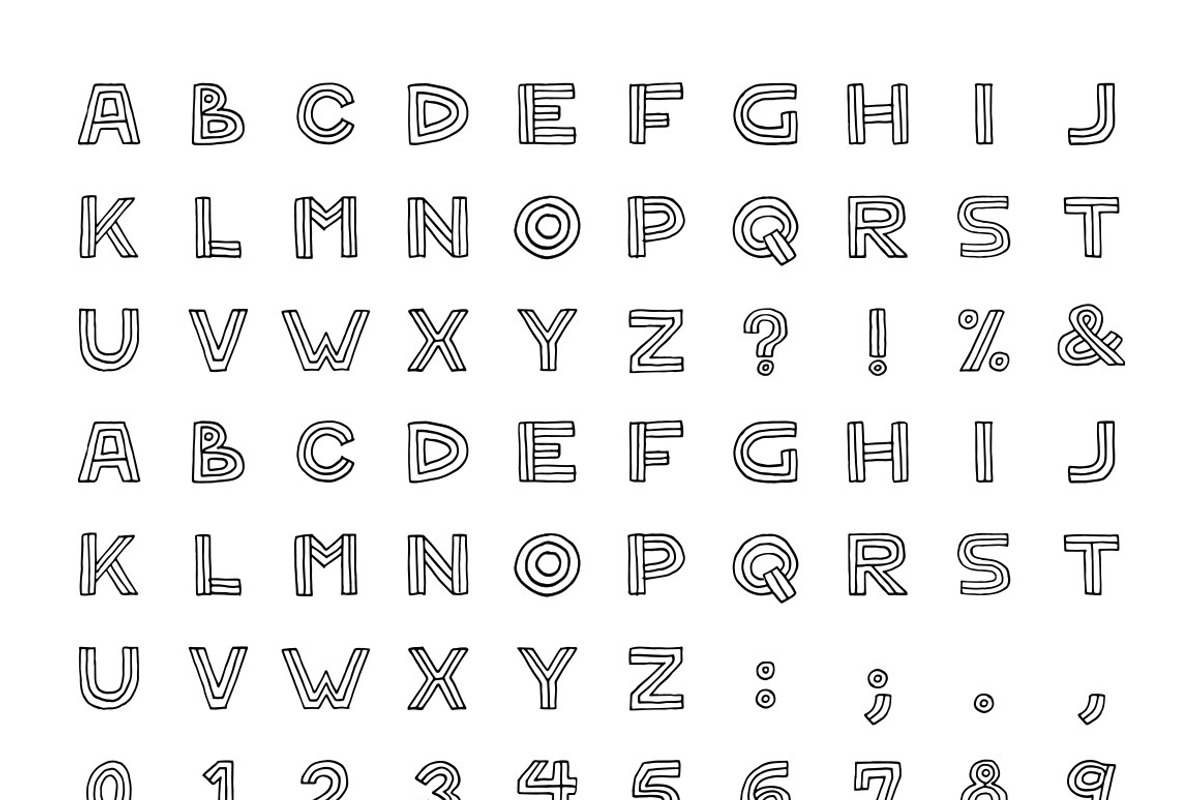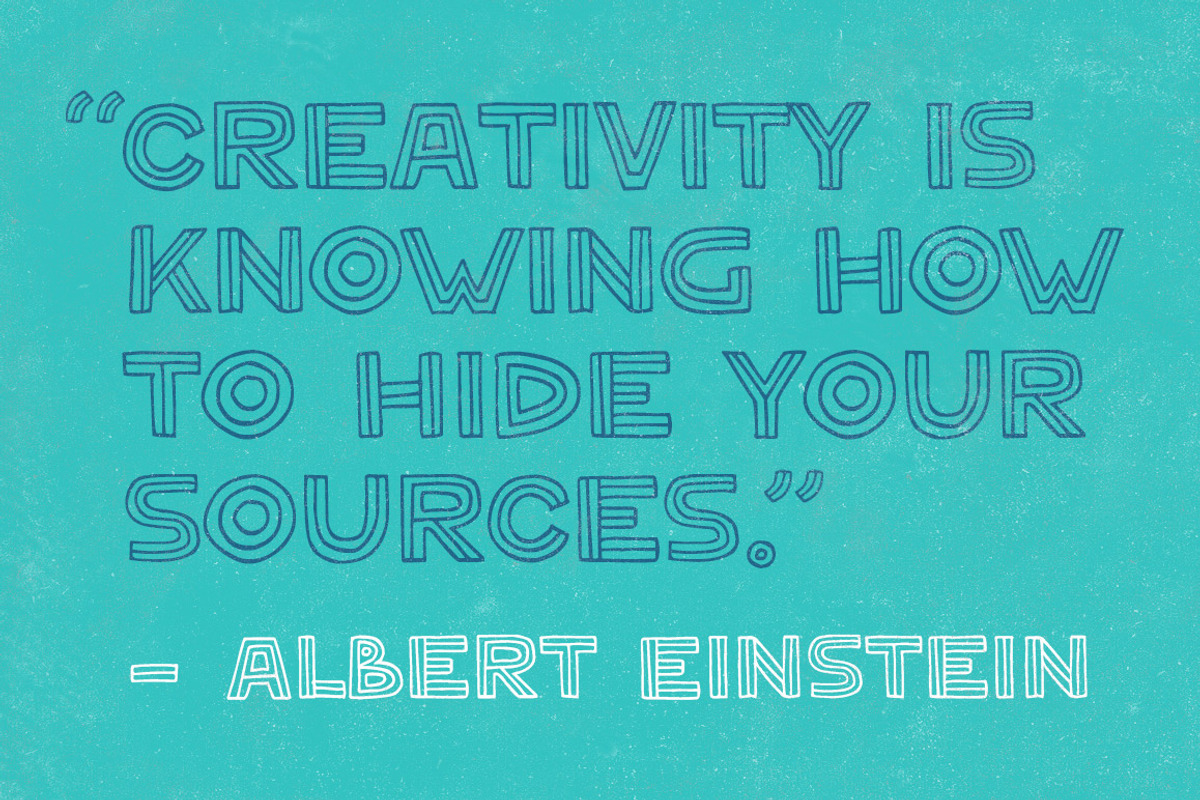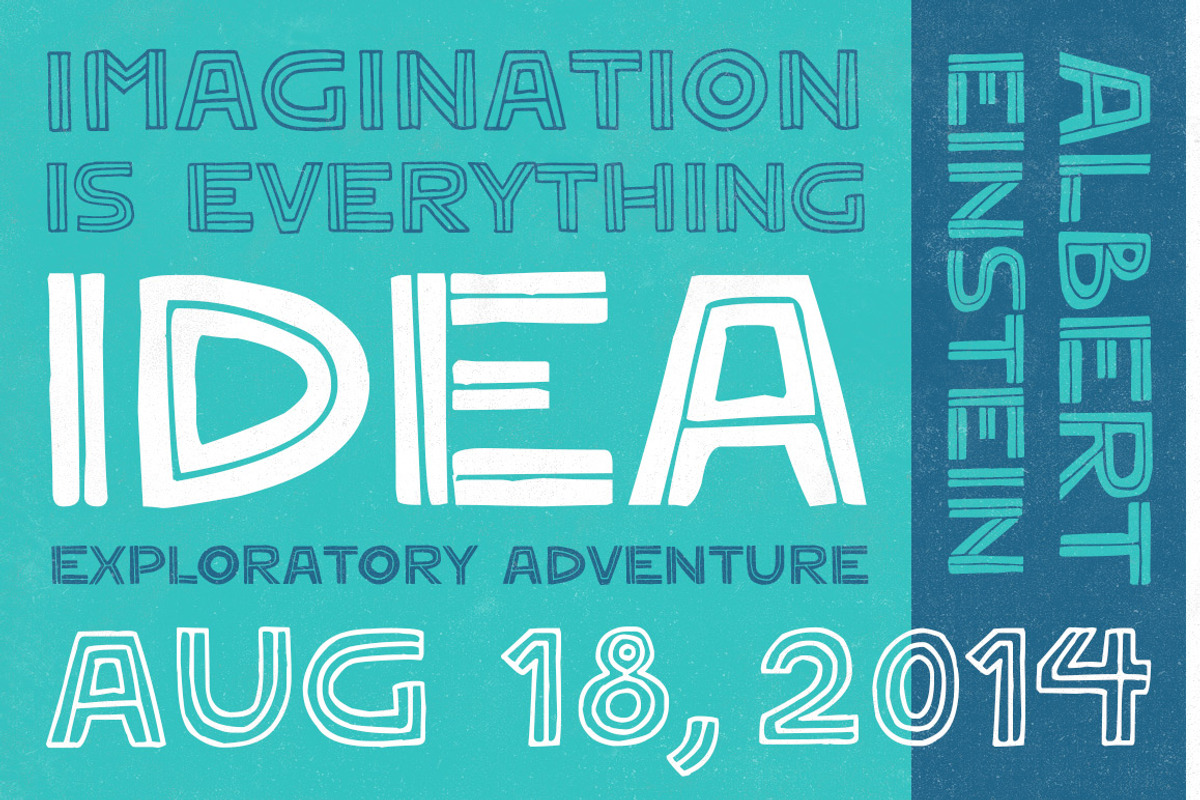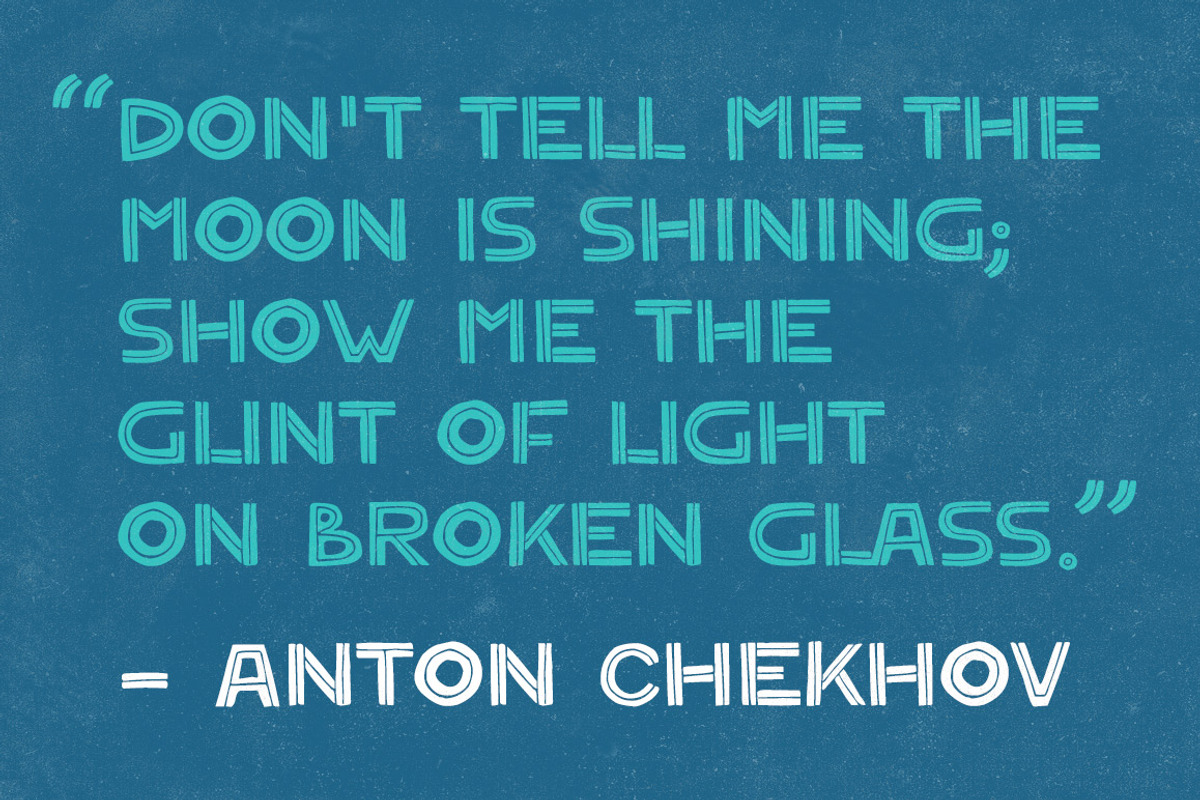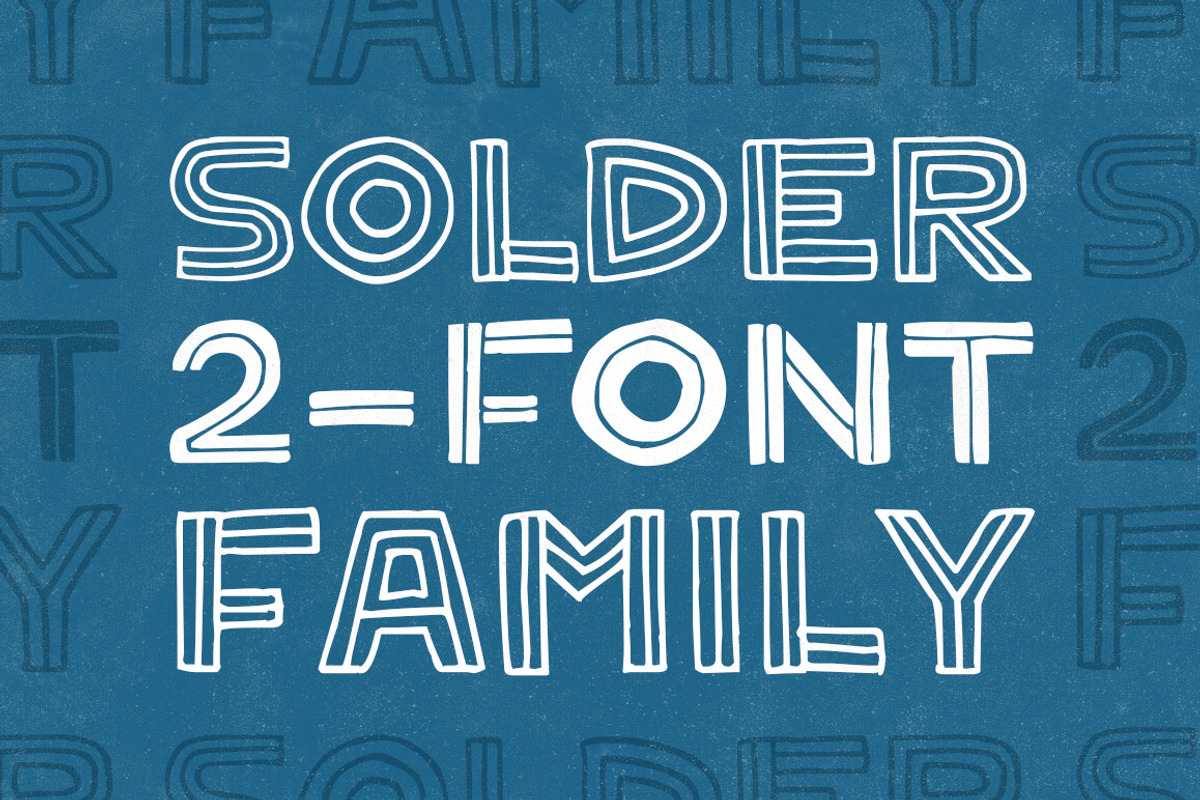
Solder 2-Font Family
Solder 2-Font Family by Satchel & Sage is a font selected for branding, posters, packaging, typography.
Why Solder 2-Font Family is worth a look
Solder 2-Font Family by Satchel & Sage fits naturally into Branding, posters, packaging, typography.